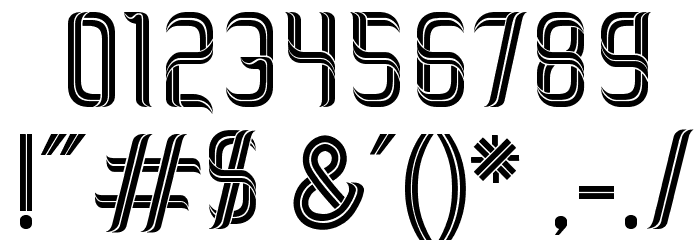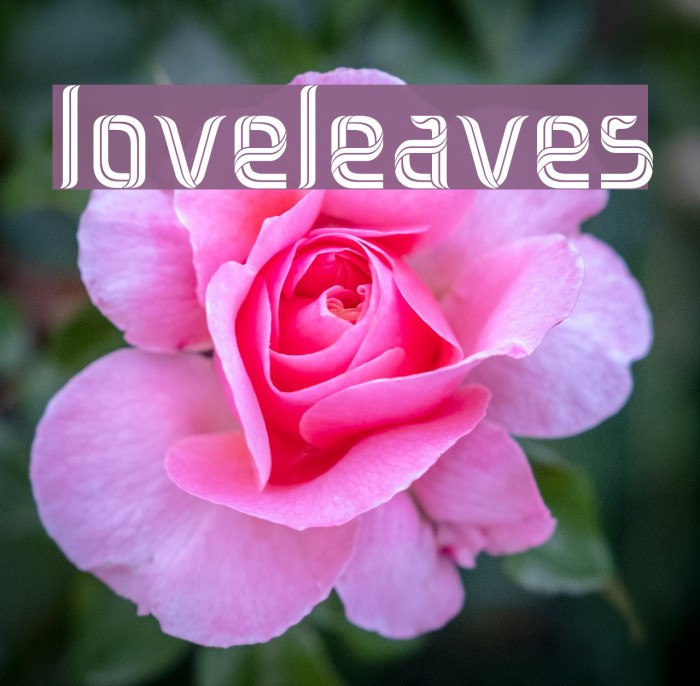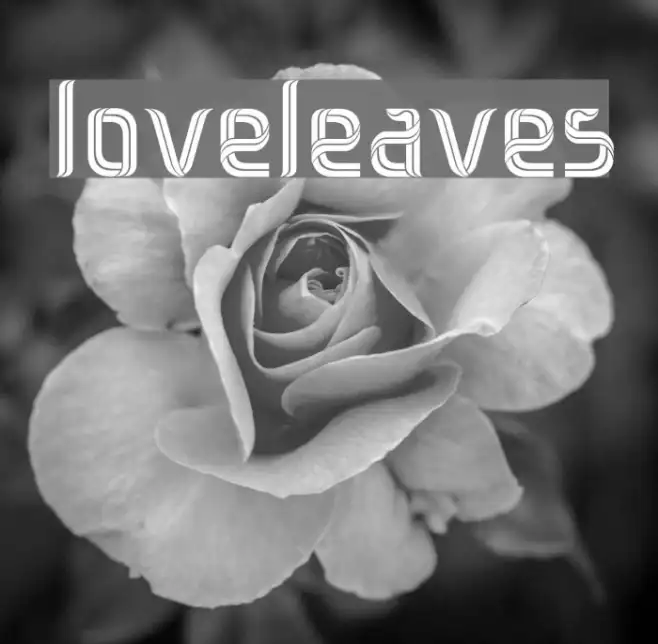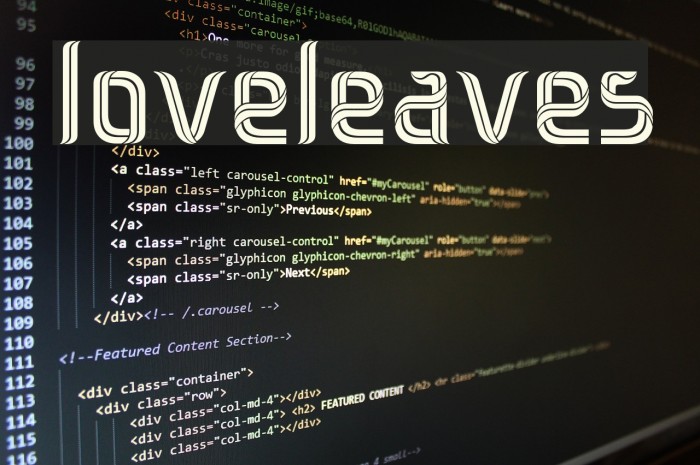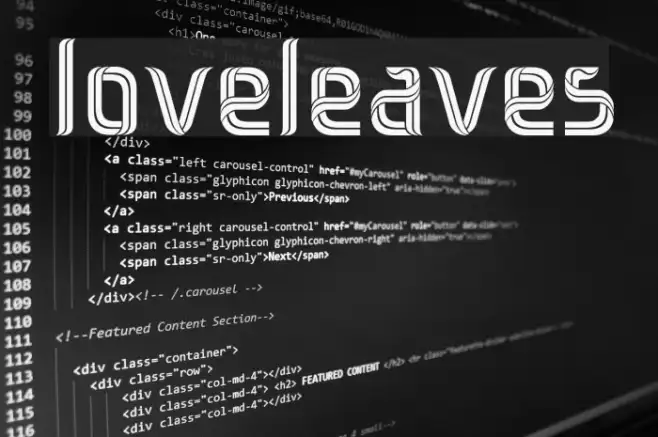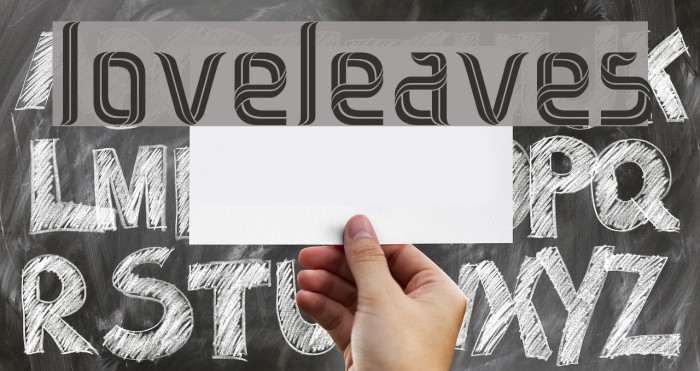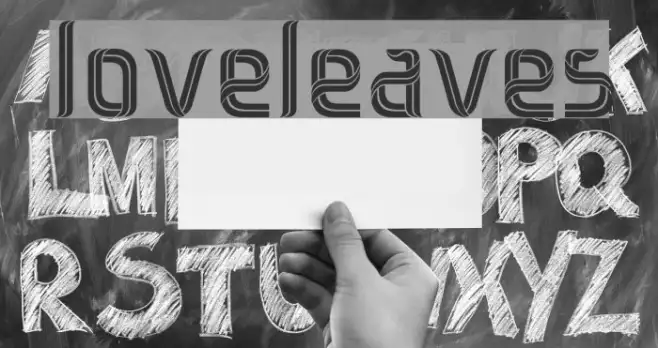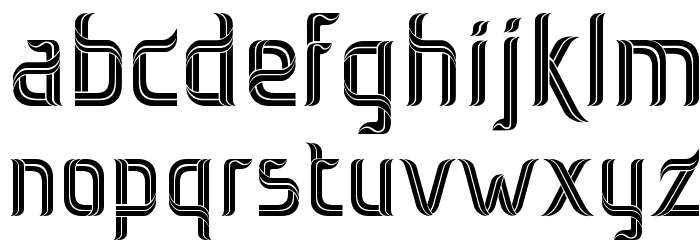
loveleaves Font
loveleaves Description
This font features a unique and decorative style characterized by its intricate line work and geometric shapes. The letters are composed of multiple parallel lines that create a sense of depth and dimension, giving the font a modern and artistic appearance. The uppercase and lowercase letters maintain a consistent design, with sharp angles and clean edges that enhance its visual appeal. The numerals and special characters follow the same design principles, ensuring a cohesive look across all elements. This font's distinct style makes it suitable for projects that require a bold and eye-catching typeface.
| Overall Style | Modern, Decorative |
| Proposed Projects | Ideal for branding, posters, album covers, and any design project that requires a striking and artistic typeface. |